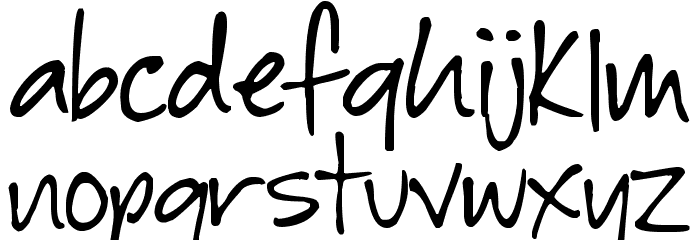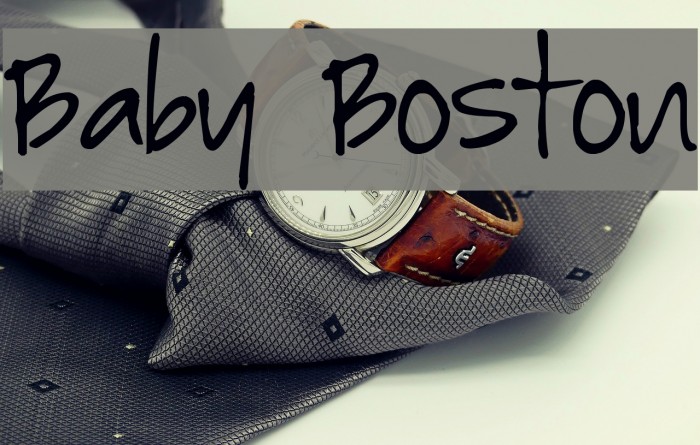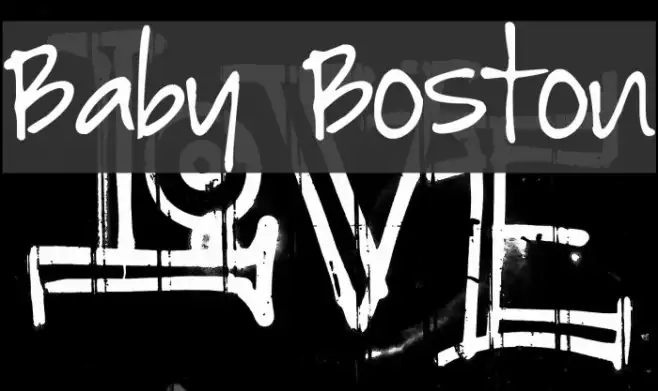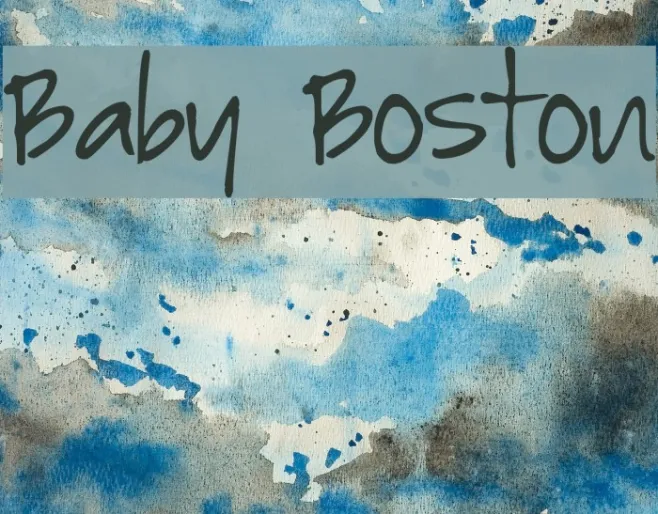
Baby Boston Font
This playful and energetic font features a handwritten style with a casual, informal appearance. The letters are slightly irregular, giving it a lively and dynamic feel. The strokes are bold and confident, with a slight slant that adds to its whimsical nature. The uppercase and lowercase letters maintain a consistent style, while the numbers and special characters are equally expressive. This font exudes a sense of fun and creativity, making it ideal for projects that require a personal touch.
A playful, handwritten font with bold, expressive strokes.
- Proposed Projects: Ideal for children's books, playful branding, greeting cards, and creative posters.
- Overall Style: Playful
- Use Case: Headlines, Logos, Creative projects